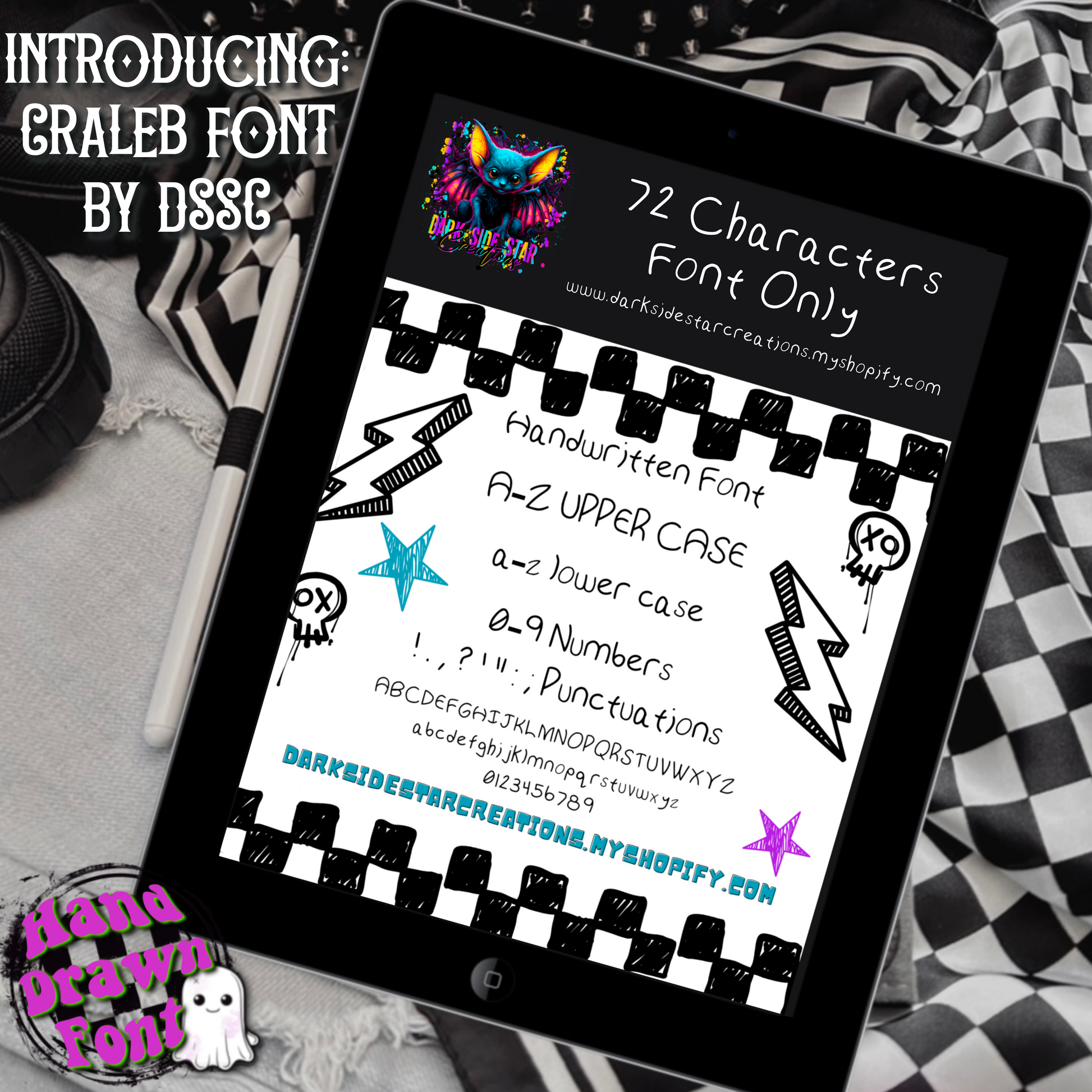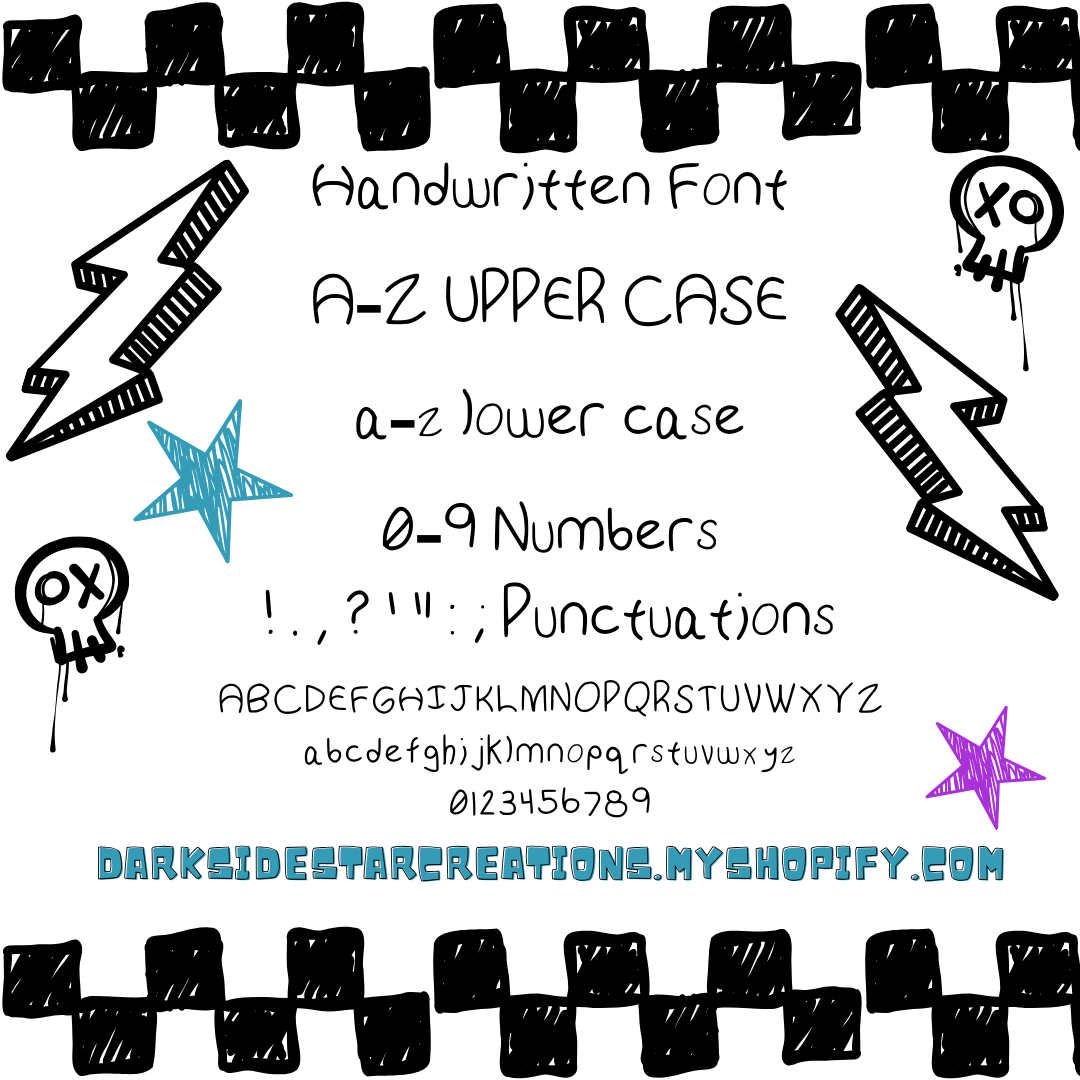
Introducing the First Hand-Drawn Font from Dark Side Star Creations—a beautifully crafted typeface that brings a touch of artistic flair and personality to any project. This unique font is perfect for those seeking a whimsical, creative, and organic feel in their designs. Each letter is carefully hand-drawn, offering an authentic, imperfect charm that makes it stand out from the typical digital fonts.
- Hand-drawn for a rustic, natural aesthetic.
- Includes upper & lowercase letters, numbers, and symbols.
Add a personal, creative touch to your next design project with this one-of-a-kind hand-drawn font, designed to inspire and delight.